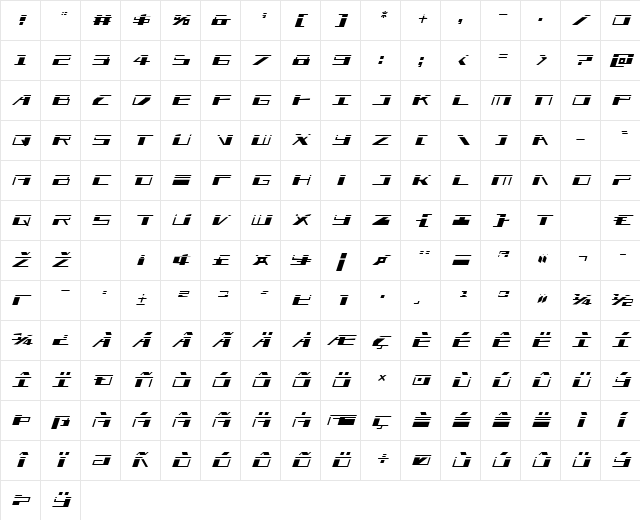
3AGLE Laser Italic Regular Free Font
3AGLE Laser Italic Regular
Design Context for 3AGLE Laser Italic
3AGLE Laser Italic is a composed and adaptable typeface that performs quietly and consistently across a wide range of design contexts. The slanted form adds forward momentum and visual energy.
Pro Tip: Use 3AGLE Laser Italic for emphasis, pull quotes, and subheadings where its slanted energy can add rhythm to the layout.